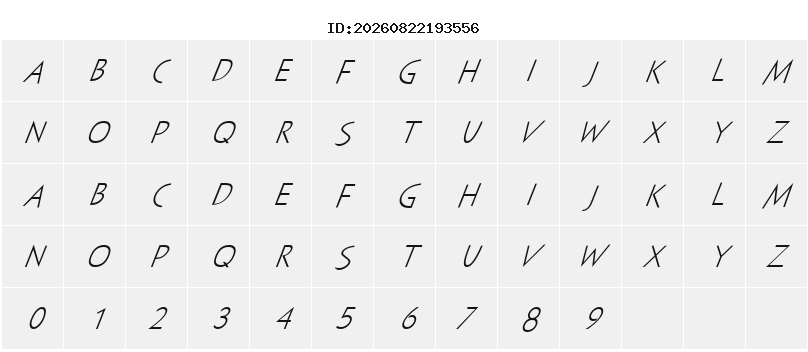
Sayer Spiritual MN Preview
• Font Name: Sayer Spiritual MN
• Font Style: Italique
• Font ID: GST:SayerSpiritualMN-Italic:1994
• Full Font Name: Sayer Spiritual MN Italic
• Version: 001.003
• PostScript Name: SayerSpiritualMN-Italic
• Character Count: 257
About Sayer Spiritual MN.ttf
Sayer Spiritual MN.ttf is a modern, elegant sans-serif font designed for ultimate readability and visual harmony. Perfect for branding, headlines, web design, and print materials.